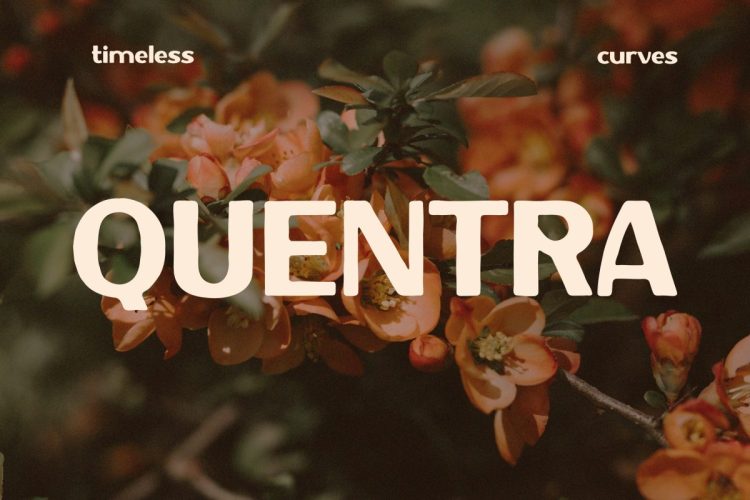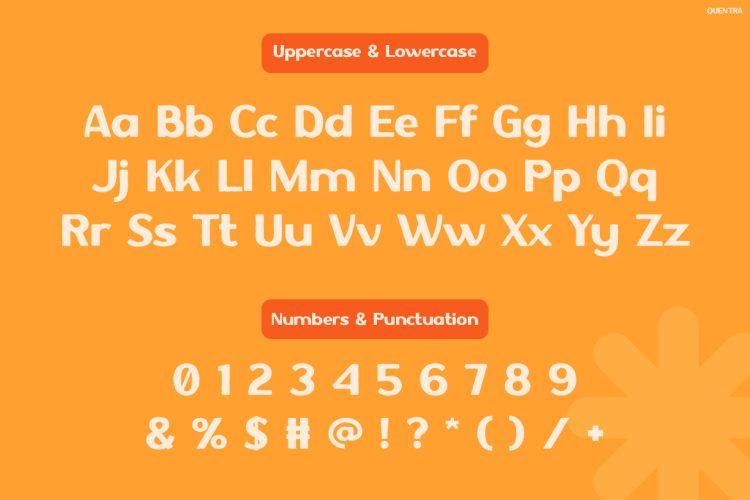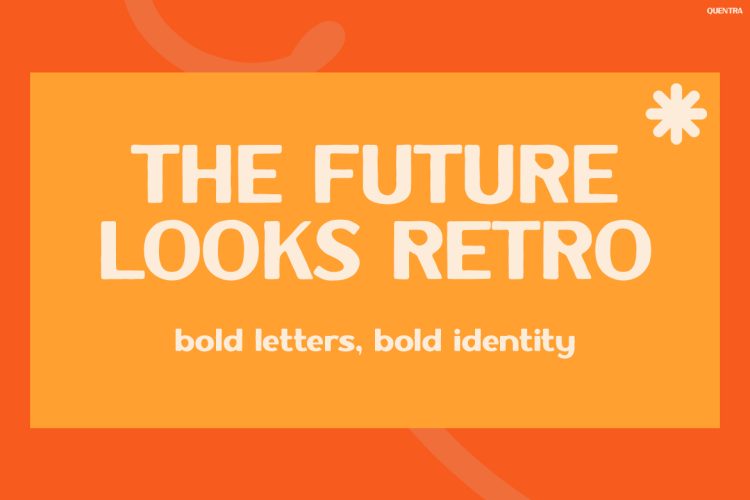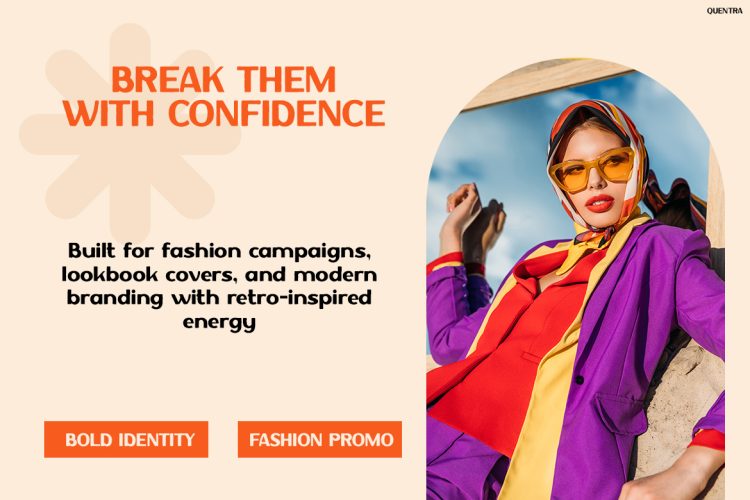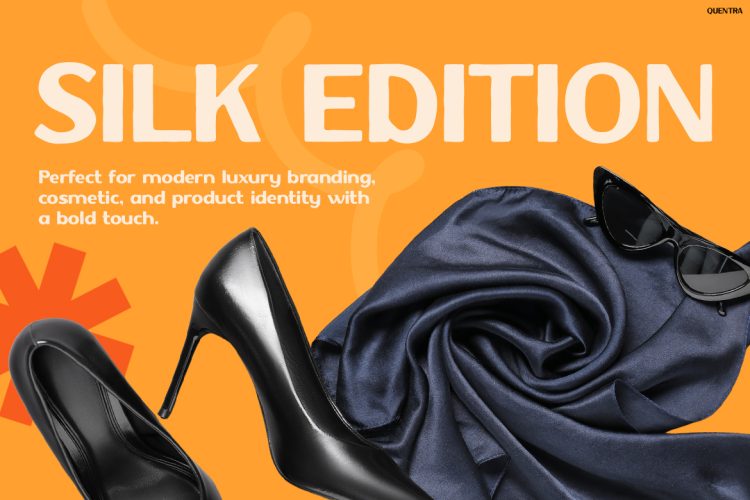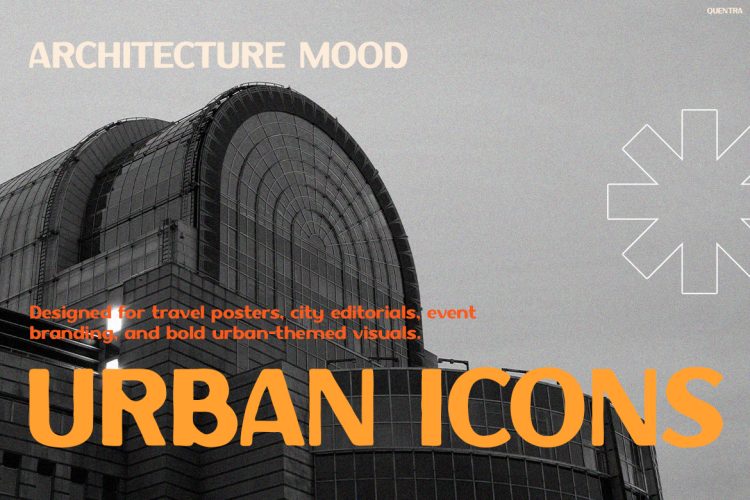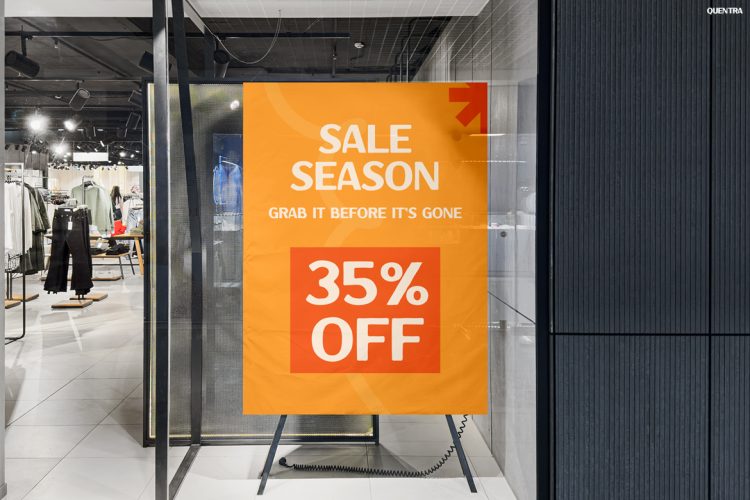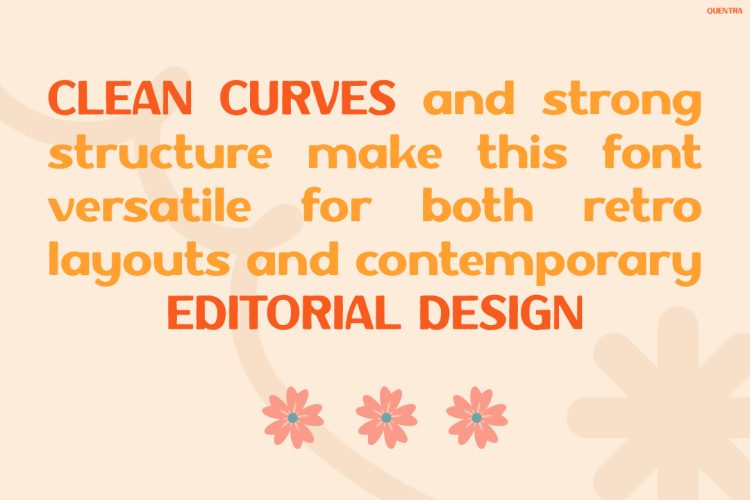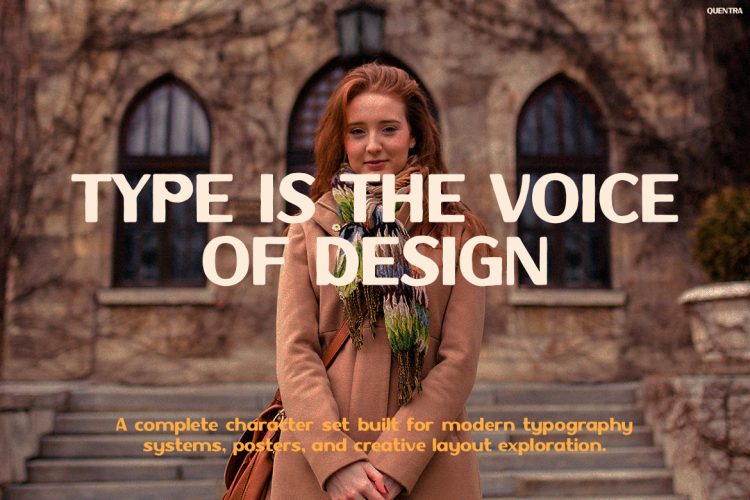
QUENTRA โ Retro Elegance with Modern Power
Retro Font QUENTRA is a stylish typeface that blends timeless retro vibes with clean modern structure. At first glance, its smooth curves and balanced proportions create a classy yet bold visual presence. Moreover, the combination of soft rounded edges and strong letterforms gives it a unique personality that feels both vintage and contemporary. Because of this harmony, the font stands out while staying highly readable. In addition, its refined aesthetic makes every word look premium and intentional. As a result, QUENTRA is perfect for designs that want to feel elegant, trendy, and impactful at the same time.
Retro Font QUENTRA is a versatile display font designed to elevate both retro-inspired and modern layouts. Not only does it feature clean curves and confident structure, but it also pairs beautifully with editorial compositions, branding visuals, and lifestyle designs. Furthermore, its flexibility allows it to adapt across bold headlines and stylish body text accents. Therefore, whether you are creating fashion campaigns, product promotions, or social media content, QUENTRA adds a polished and artistic touch. Ultimately, it transforms simple text into visually rich and memorable design elements.
Because of its elegant yet bold character, Retro Font QUENTRA is ideal for:
- Fashion branding and lookbooks
- Editorial layouts and magazine headlines
- Beauty and lifestyle product packaging
- Posters, campaigns, and promotions
- Social media content with a retro-modern vibe
- Creative projects that need a premium aesthetic